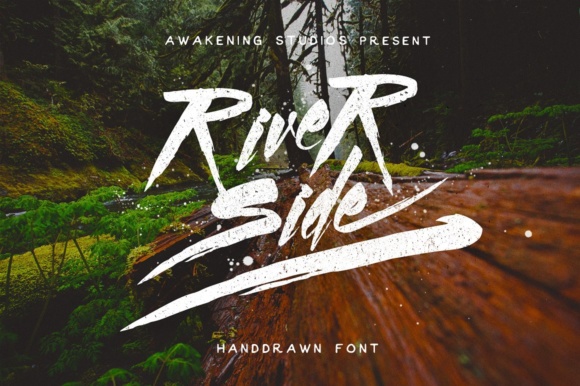
Feast your eyes on River Side Font, a hand-painted masterpiece, etched with passion and creativity. This display font is the brainchild of Maghrib, a visionary artist who breathed life into its every curve and stroke. River Side is not just a collection of letters; it's an expression of artistry, a testament to the power of human imagination.
Within River Side's elegant form lies a world of possibilities, ready to transform your digital creations into breathtaking works of art. Its free-flowing, hand-painted style evokes a sense of authenticity and individuality, as if each letter were carefully crafted just for you. The result is a font that exudes charm, character, and an undeniable human touch.
So, whether you're a seasoned designer or a passionate creative, let River Side Font guide you on a journey of artistic expression. Its captivating allure will add a touch of magic to your projects and leave a lasting impression on your audience. Embrace the beauty of imperfection and let River Side's hand-painted grace elevate your designs to new heights.
Features That Make River Side Font Irresistible:
* Hand-crafted Charm: Each letter in River Side Font is lovingly hand-painted, capturing the essence of human creativity. The result is an organic, authentic font that tells a story with every stroke.
* Unmatched Character: River Side Font isn't just a collection of characters; it's a cast of unique personalities. Each letter has its own quirks and eccentricities, giving your designs a captivating, one-of-a-kind charm.
* Versatility Personified: River Side Font shines in a myriad of applications. From logos and branding to social media graphics and invitations, its versatility knows no bounds. Let River Side's magic touch add a dash of artistic flair to your creative endeavors.
* Boundless Creativity: River Side Font is your gateway to boundless creativity. Its malleable nature allows you to mold it into any shape or form, creating captivating compositions that reflect your unique vision. Unleash your imagination and let River Side be your creative compass.